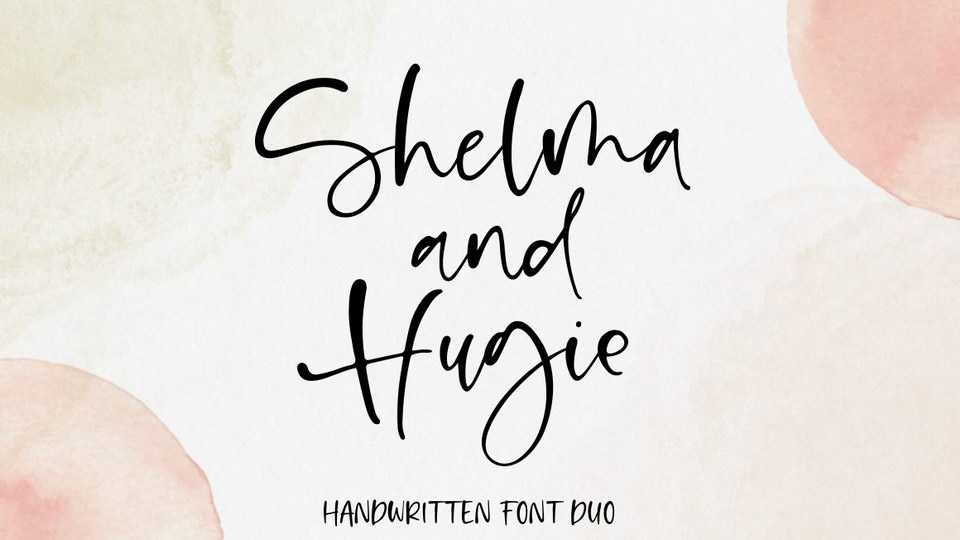
Download Shelma & Hugie font, a natural handwritten script. It’s perfect for logo, invitation, stationery, wedding designs, social media posts, advertisements, label, photography, watermark, special events or anything.
Designer: Sronstudio